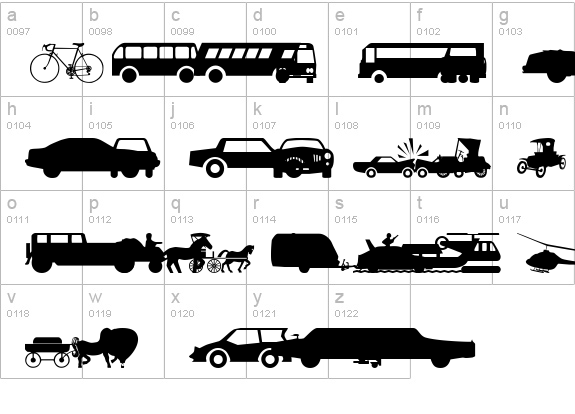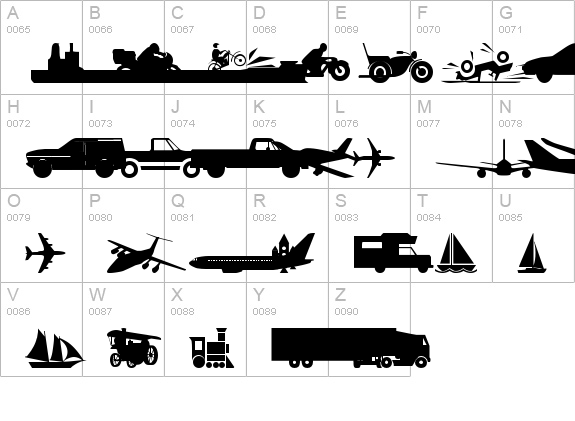
wmtransport1 Font Details
Introducing wmtransport1 font, a modern and sleek typeface that exudes elegance and sophistication. This font is perfect for creating stylish and professional designs that stand out. With its clean lines and contemporary aesthetic, wmtransport1 font is versatile and can be used for a wide range of design projects. The best part? wmtransport1 font is completely free to download at FontsMarket.com! Whether you're working on a branding project, website design, or any other creative endeavor, this font is sure to elevate your work to the next level. Don't miss out on the opportunity to enhance your designs with the timeless charm of wmtransport1 font. Download it now and let your creativity soar!